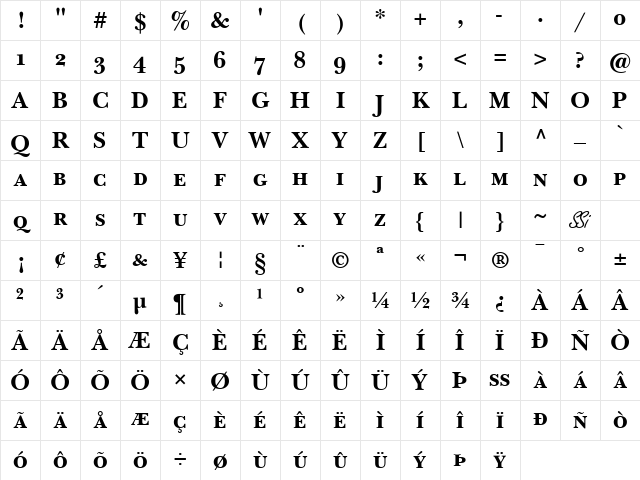
Complete Baskerville Small Caps SSi Bold Small Caps glyph index. Displaying only characters natively supported by Baskerville Small Caps SSi Bold Small Caps font.
Baskerville Small Caps SSi is a composed and adaptable typeface that performs quietly and consistently across a wide range of design contexts. Its bold stroke weight gives it real presence on the page.